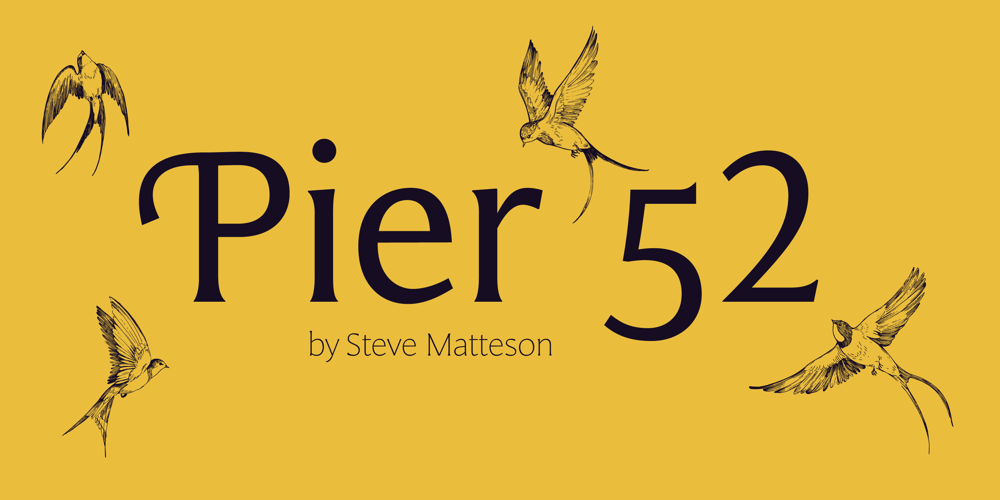
Pier52
Pier52 font
Pier52 Font Family was designed by Steve Matteson and published by Matteson Typographics. Pier52 contains 16 styles and family package options. Pier 52 is an incised serif typeface family with a refined elegance for display and text. The distinguished letterforms recall sign painter lettering on institutional buildings and landmarks. The slight contrast in weight and even proportions make Pier 52 a versatile text family for web or print publishing. Pier 52 was designed by Steve Matteson in 2024.